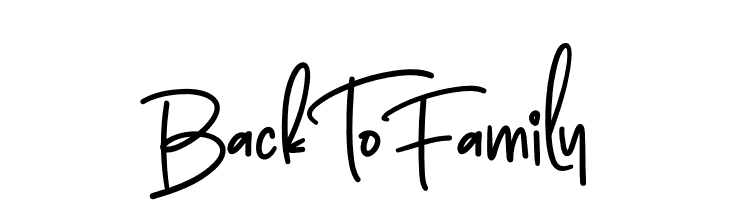
A modern, elegant script font with flowing, cursive characters.
A playful, handwritten font with a whimsical and charming style.
A dynamic and flowing italic script font with elegant connections.
A playful, tilted font with a hand-drawn, whimsical style.
A playful handwritten font with smooth, rounded strokes and a lively appearance.
A cursive, elegant script font with flowing loops and swashes.
A playful, whimsical script font with flowing, interconnected letters.